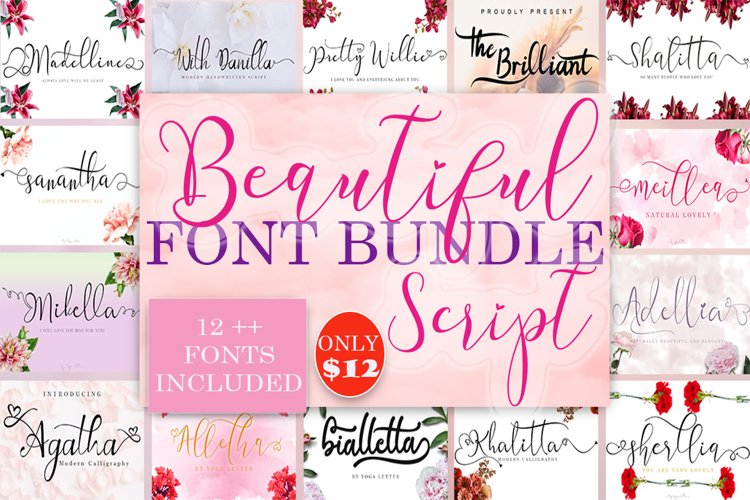
Beautiful Font Bundle
This set includes 20+ font in 12 typeface beautiful and popular fonts script !!!
This bundle is perfect for a variety of projects such as christmas, weddings, designs, branding, logos, invitations, stationery, social media posts, advertisements, product packaging, product designs, labels, photography, valentine, easter, mother day, father day, watermarks, special events or whatever.